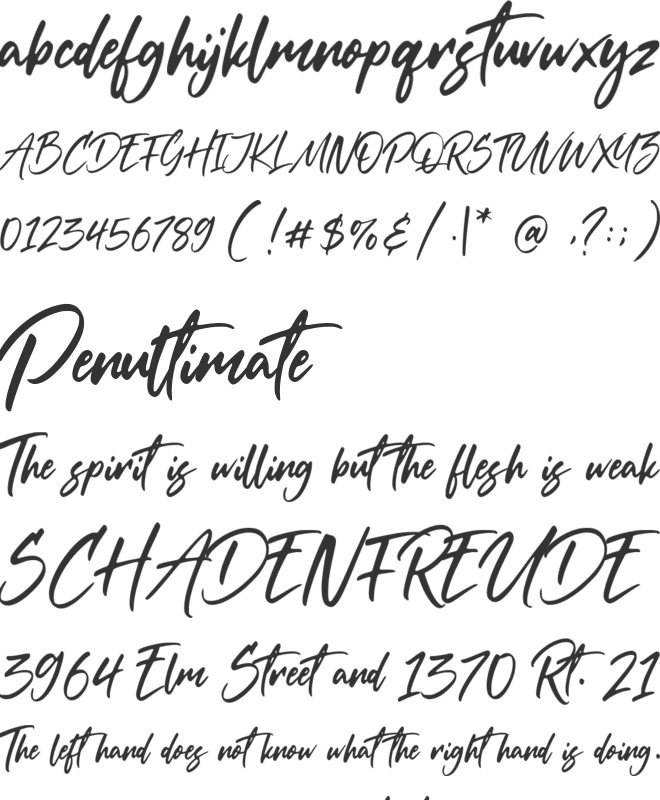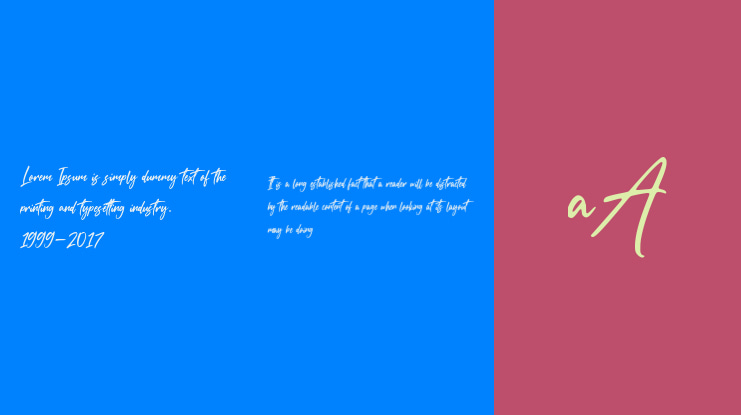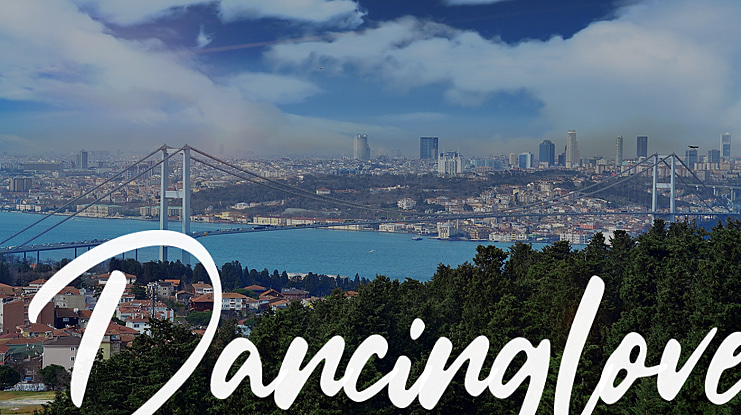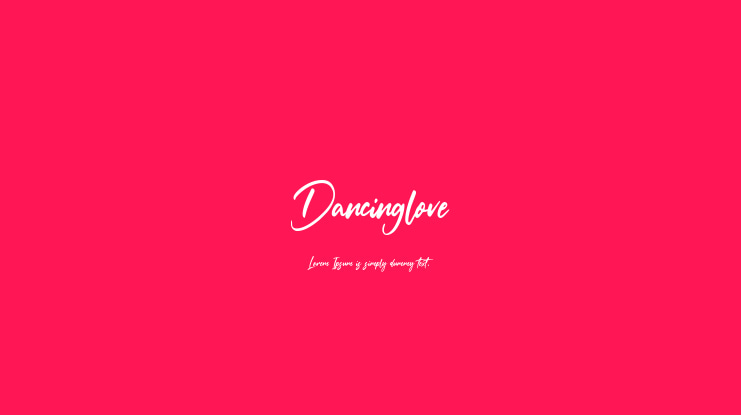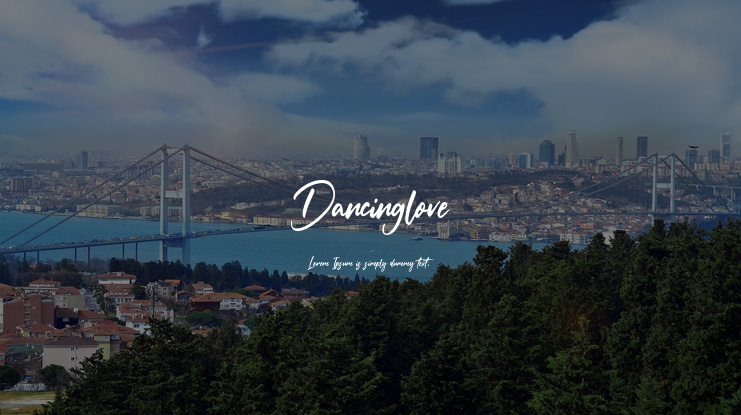
Dancinglove Font
Introducing by Balpirick Studio.
Proudly Present, Dancinglove Font.
Dancinglove is a Modern Calligraphy Font.
Dancinglove is a unique and elegant handwritten font. It looks beautiful on a variety of designs requiring a personalized style, such as wedding invitations, thank you cards, weddings, greeting cards, logos and so on.